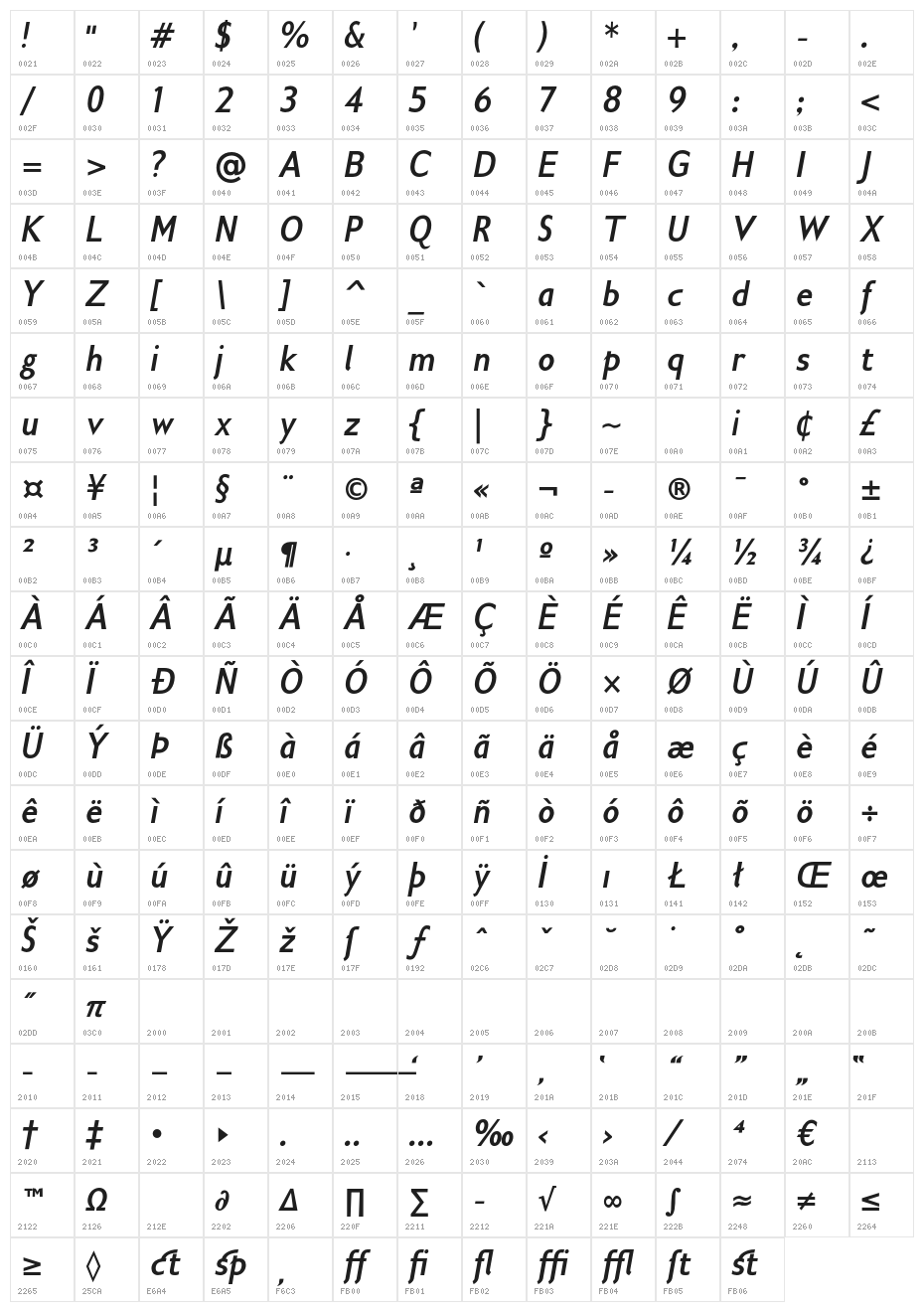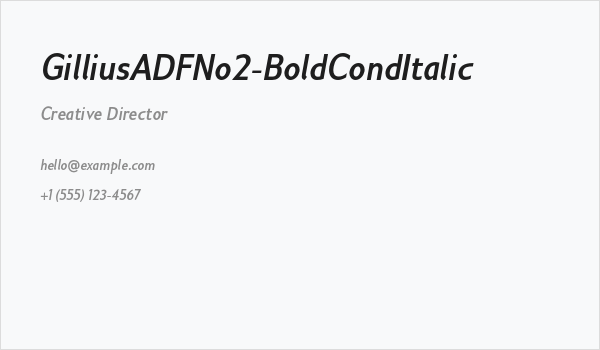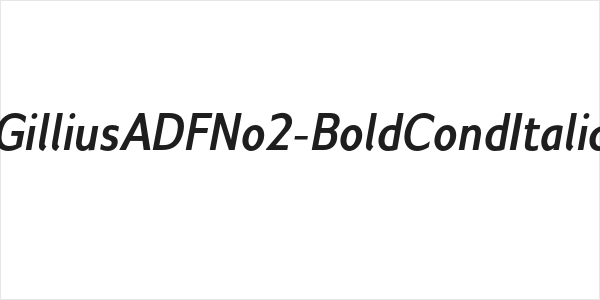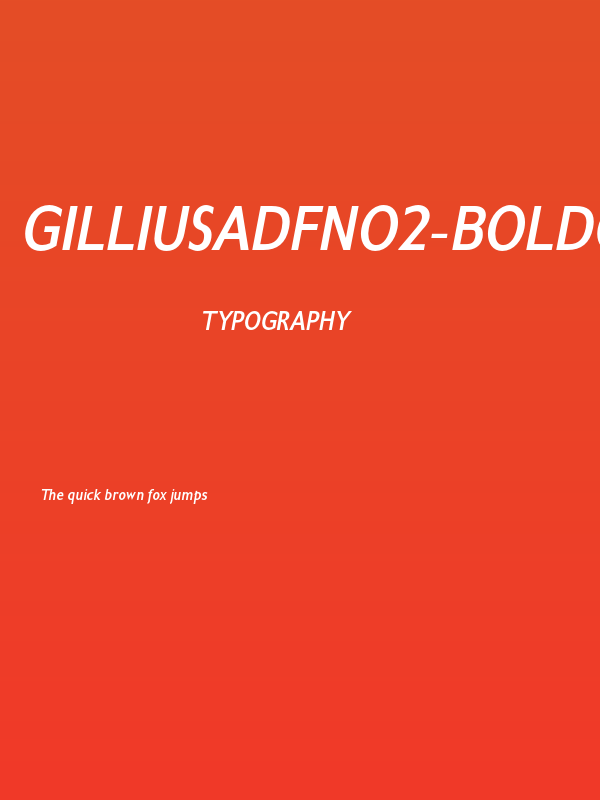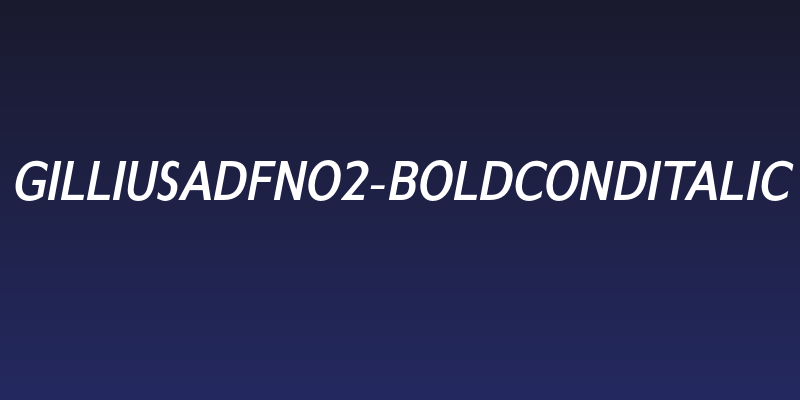
GilliusADFNo2-BoldCondItalic Font
GilliusADFNo2-BoldCondItalic Description
This font features a bold and condensed style with an italic slant, giving it a dynamic and modern appearance. The characters are well-defined with a consistent stroke width, contributing to its boldness. The italic angle adds a sense of movement and urgency, making it suitable for attention-grabbing headlines. The condensed nature allows for efficient use of space, making it ideal for compact layouts. The font maintains readability with clear distinctions between characters, even in its bold form. Its modern design is complemented by a slight geometric influence, providing a clean and professional look.
| Use Case | Headlines, Logos, Advertising |
| Proposed Projects | Ideal for headlines, advertising, branding, and editorial design where a strong and modern presence is needed. |